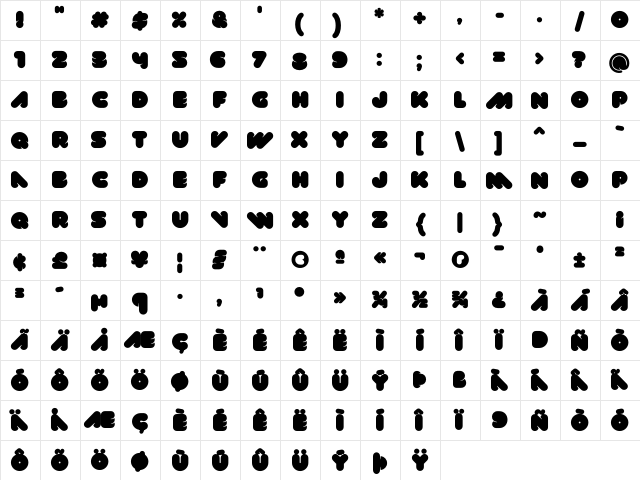
VAL Bold Free Font
VAL Bold
Foundry: ￿ 2009 Designed by Svetoslav Simov ￿ Fontfabric, Inc
Design Context for VAL
VAL is a composed and adaptable typeface that performs quietly and consistently across a wide range of design contexts. Its bold stroke weight gives it real presence on the page.
Who designed the VAL Bold font?
This font was published by  2009 Designed by Svetoslav Simov  Fontfabric, Inc. Check the technical specs section for copyright and designer details.